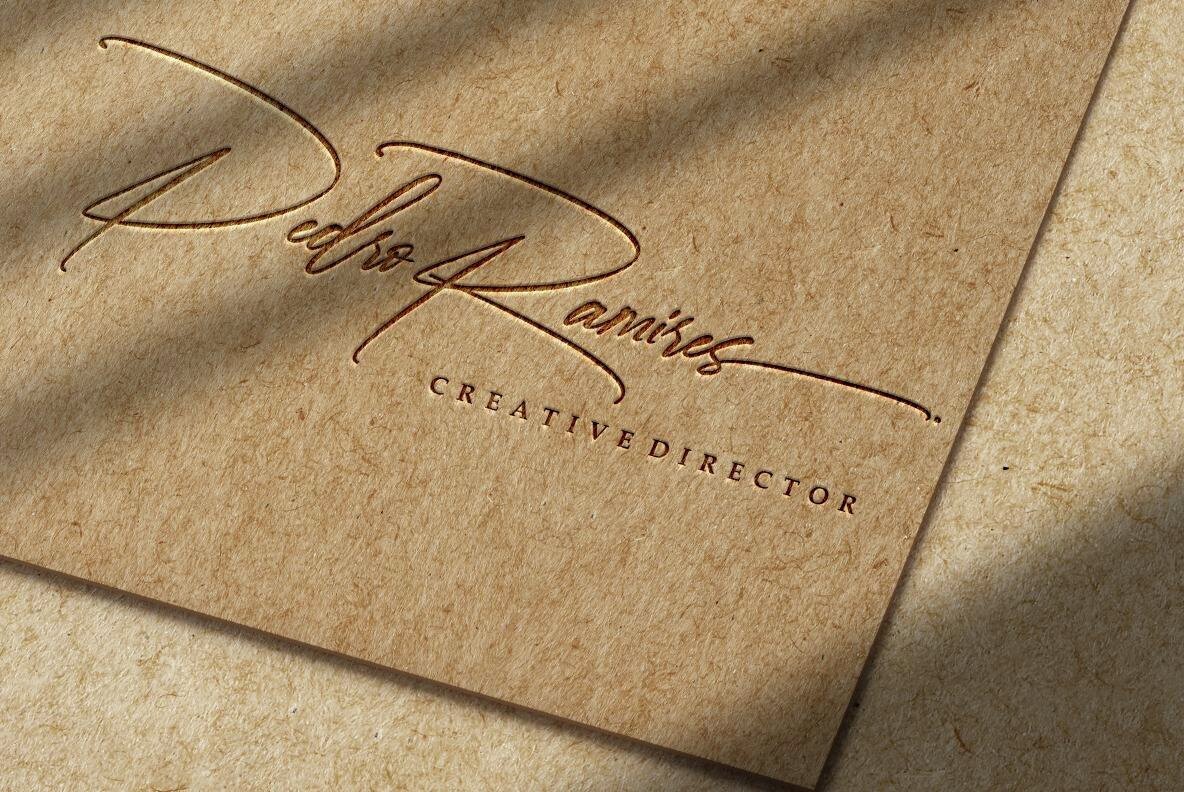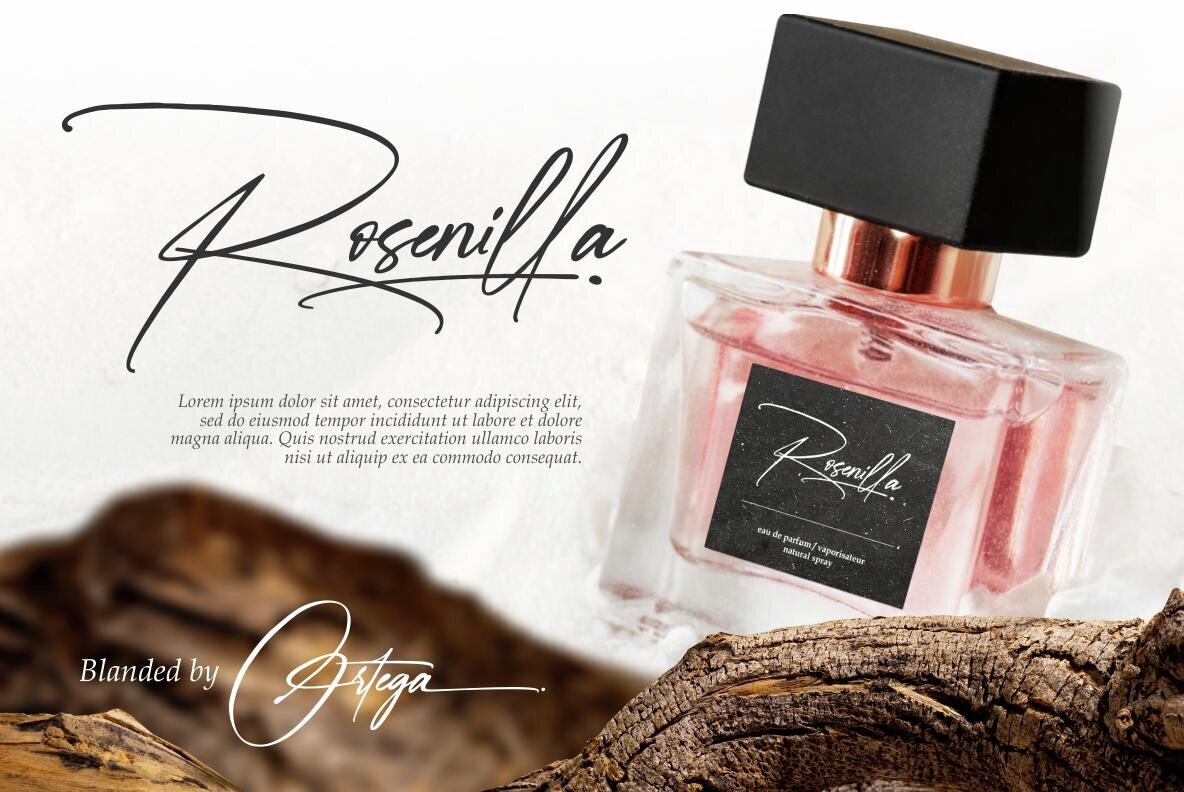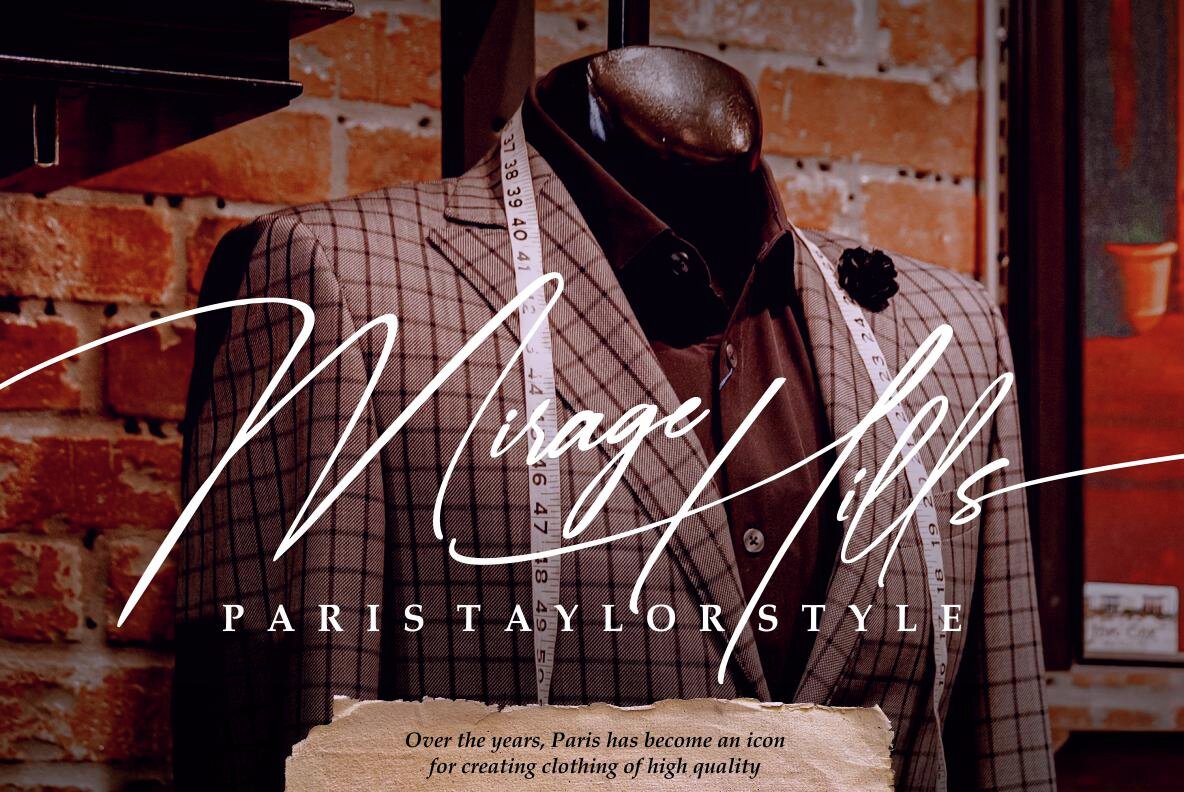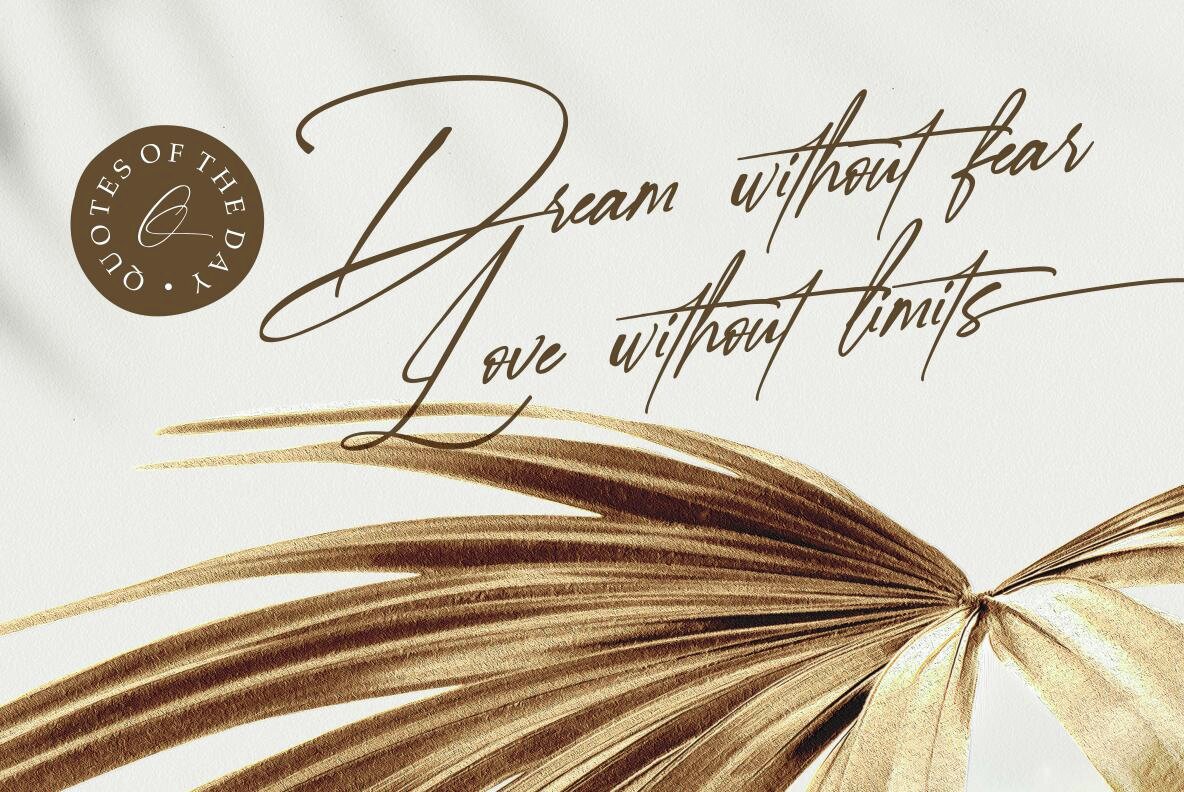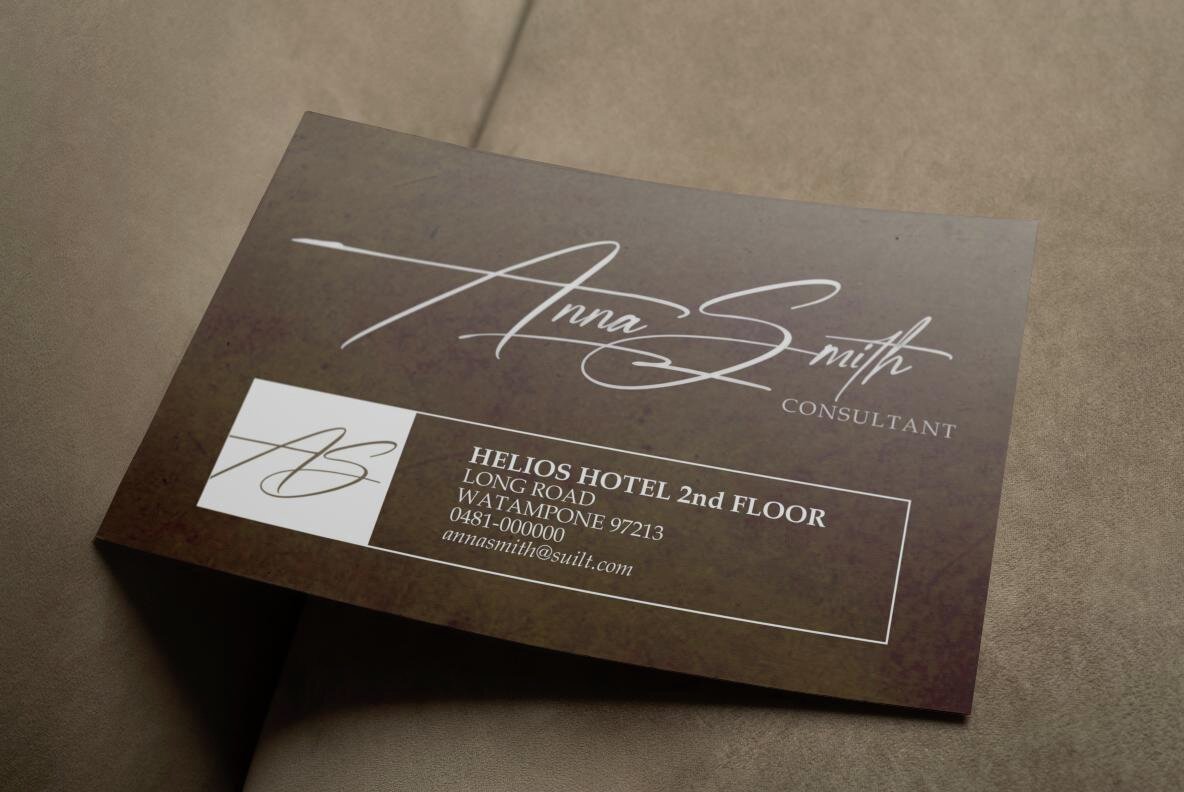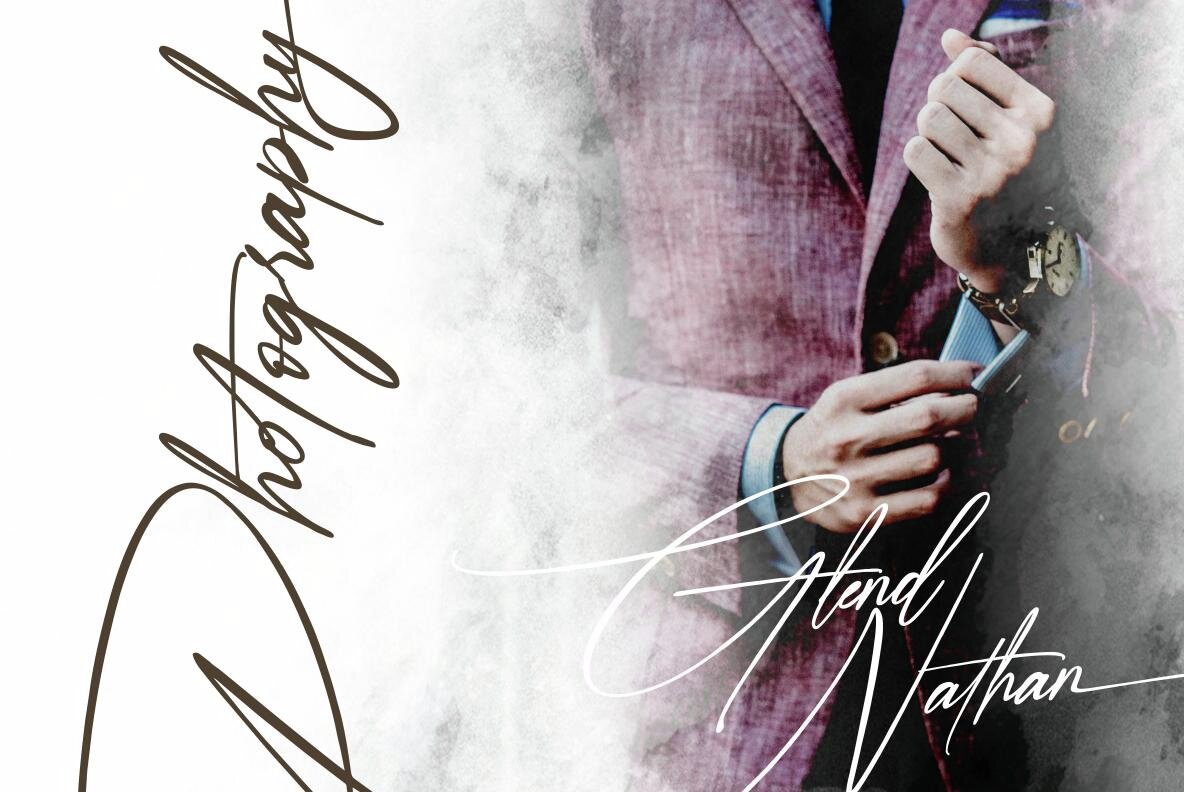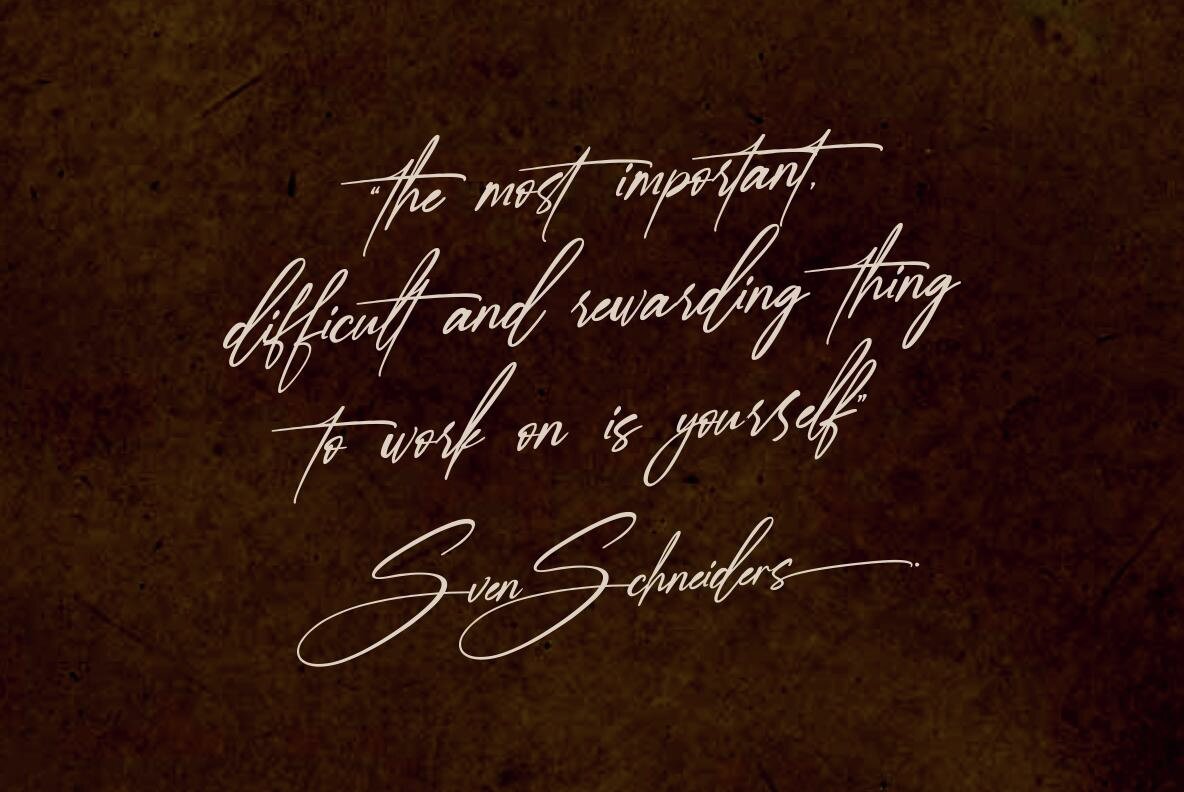
White Sign Font
White Sign Regular
White Sign is a real handwriting font designed to add a luxurious touch to various projects. The font features elegant swash lines that make it ideal for branding, photography, invitations, quotes, watermarks, advertisements, product designs, social media posts, stationery, and labels.
Enhance your designs with the sophisticated feel of White Sign.